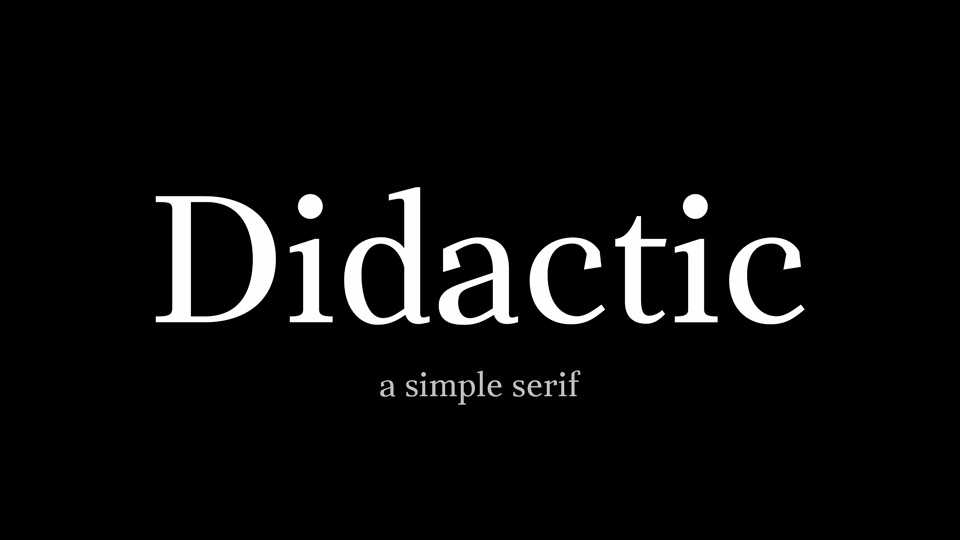
Download Didactic typeface, a simple serif font family in five weights. Didactic was created for all kinds of body copy — long and short paragraphs, books and websites in any modern design context.
Designer: Tyler Finck